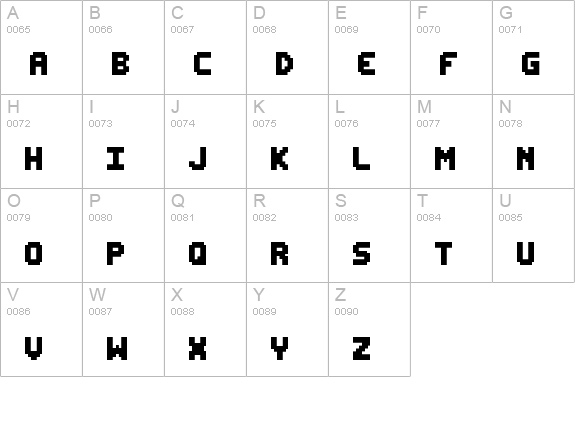
The Edit Undo BRK font is a stunning typeface that combines elegance with a touch of playfulness. Designed with meticulous attention to detail, this font is perfect for a wide range of creative projects. Whether you're designing a logo, creating eye-catching headlines, or designing a beautiful poster, Edit Undo BRK is sure to make a lasting impression. With its clean lines and unique character shapes, this font exudes a sense of modernity and sophistication. The bold and distinct letterforms make it easy to read, ensuring that your message will be conveyed with clarity and impact. One of the best things about Edit Undo BRK is that it is available for free download at FontsMarket.com. This means that you can use this beautiful font in your projects without any restrictions. Whether you're a professional designer or a hobbyist, this font is accessible to everyone, allowing you to bring your creative visions to life. So why wait? Download Edit Undo BRK today and let your creativity soar. Whether you're designing a website, creating a brochure, or working on a personal project, this font will add a touch of elegance and style. Don't miss out on this opportunity to enhance your designs with a beautiful and versatile typeface. Get Edit Undo BRK now and take your designs to the next level.